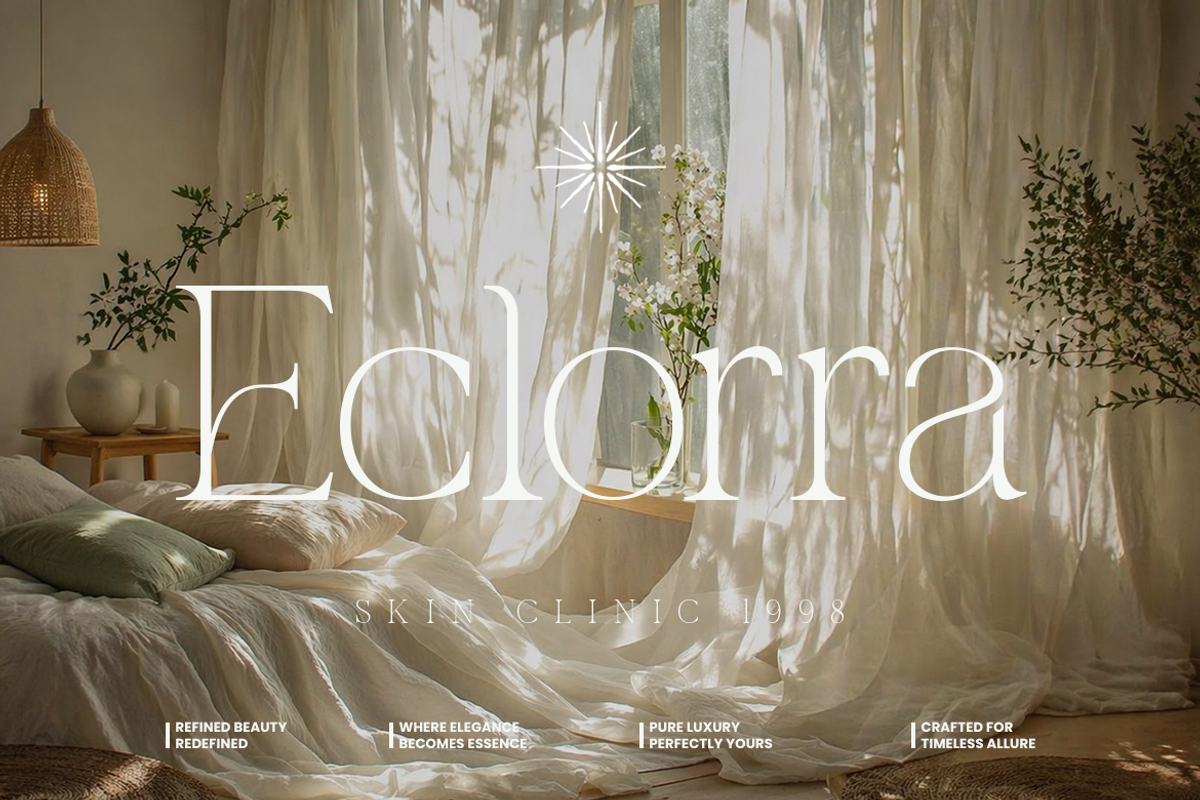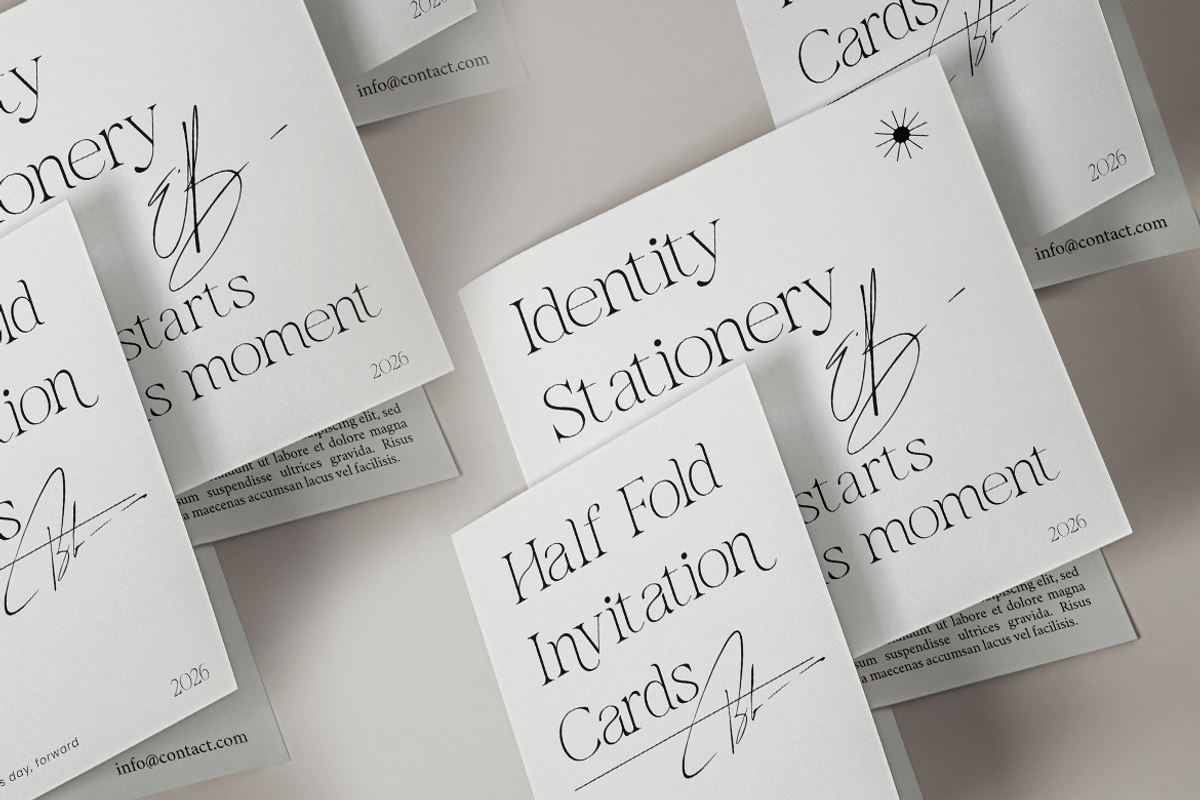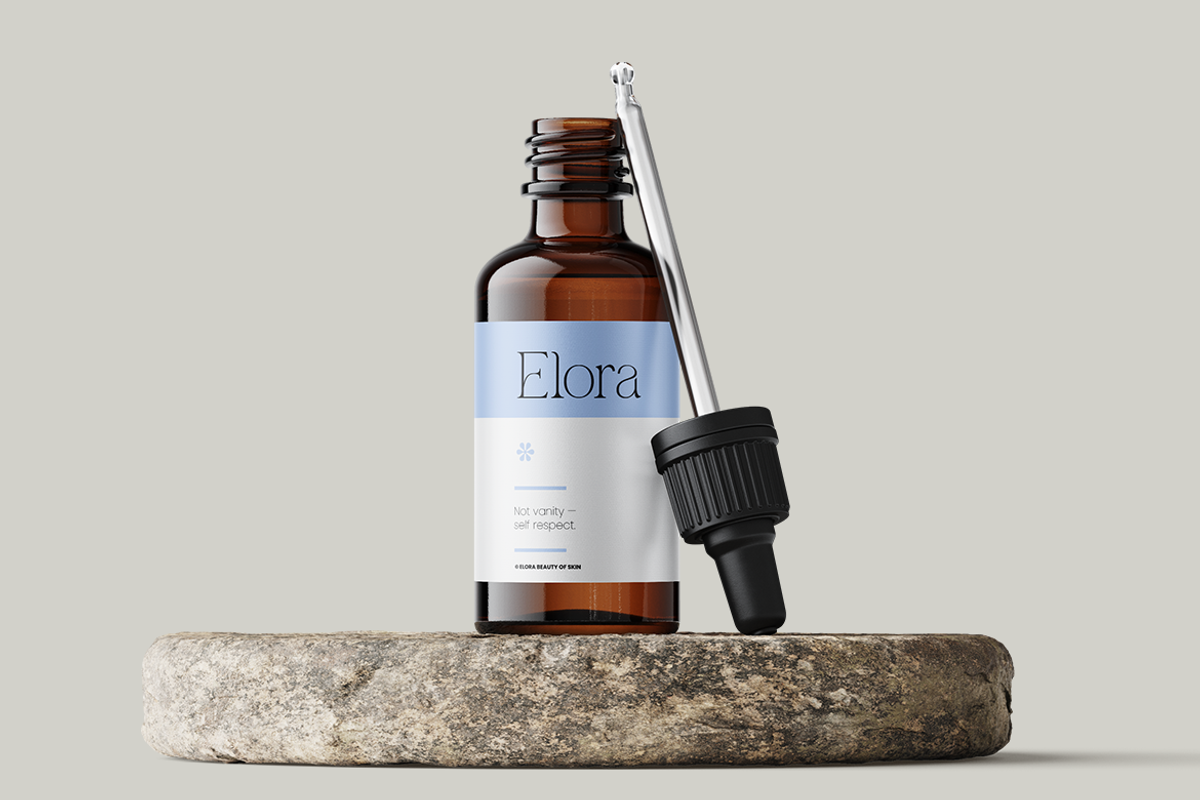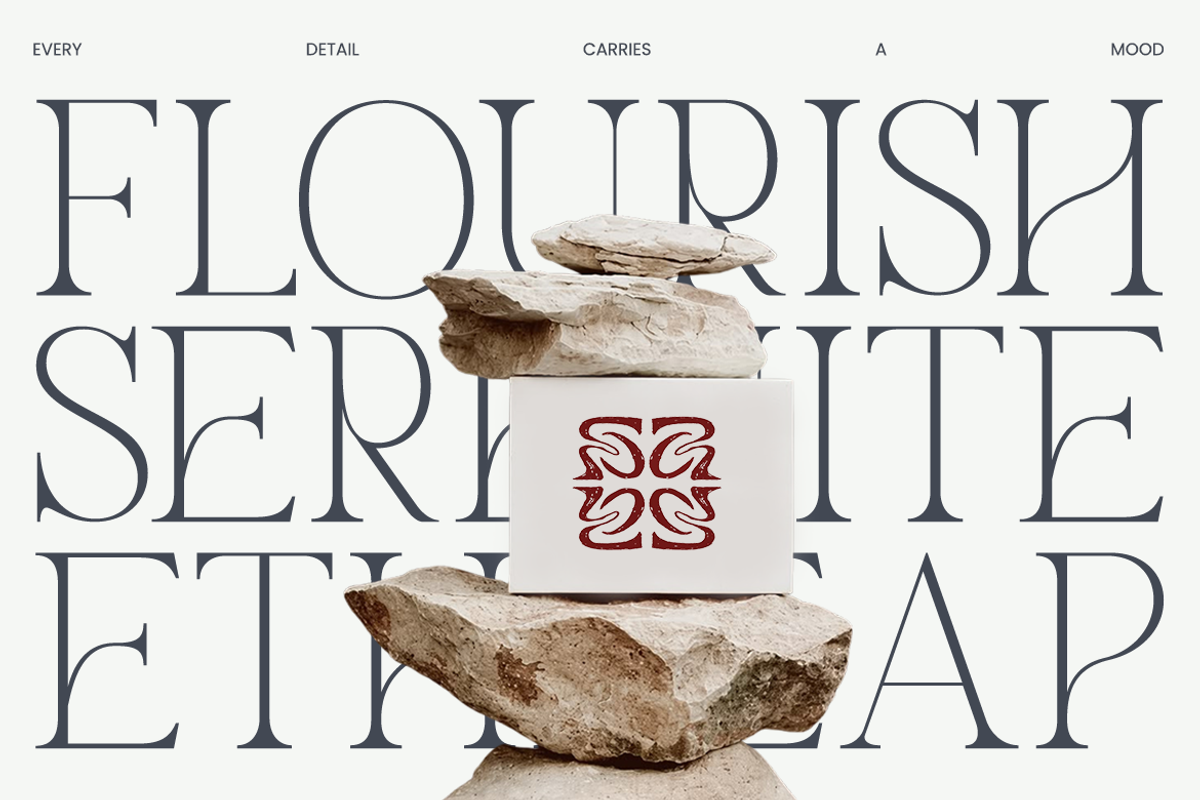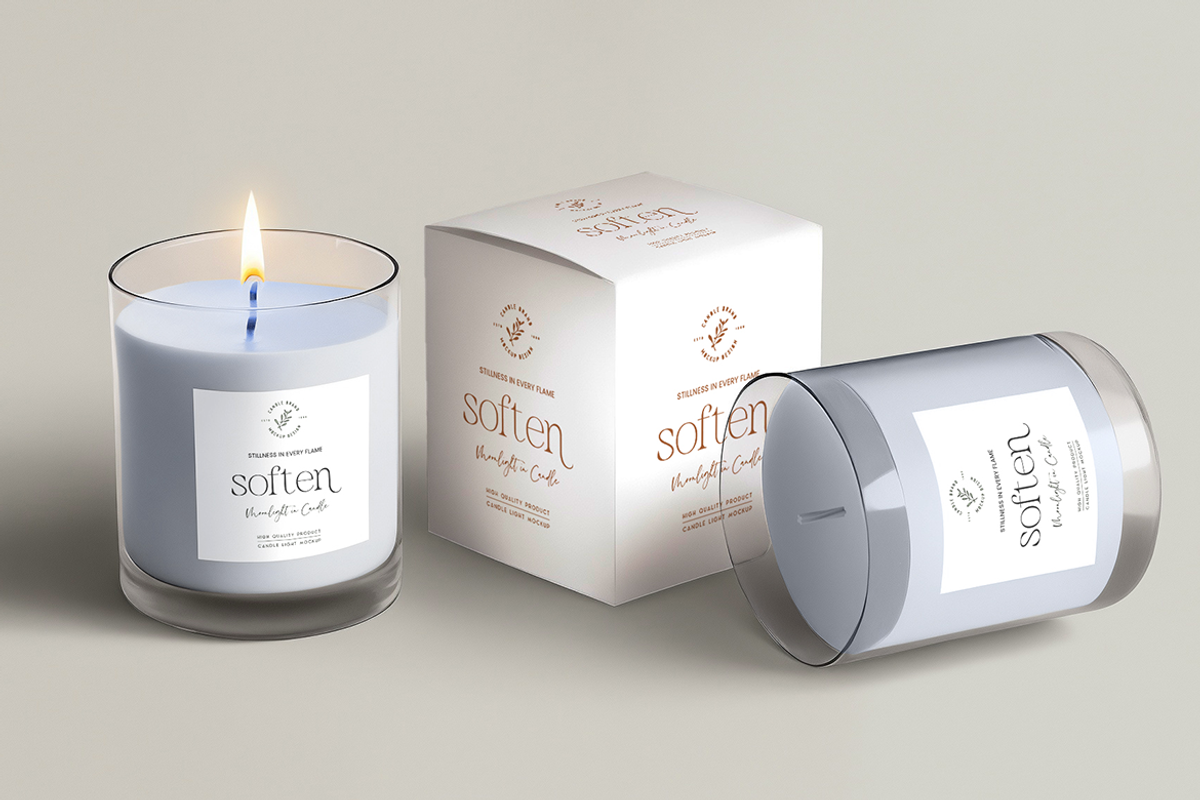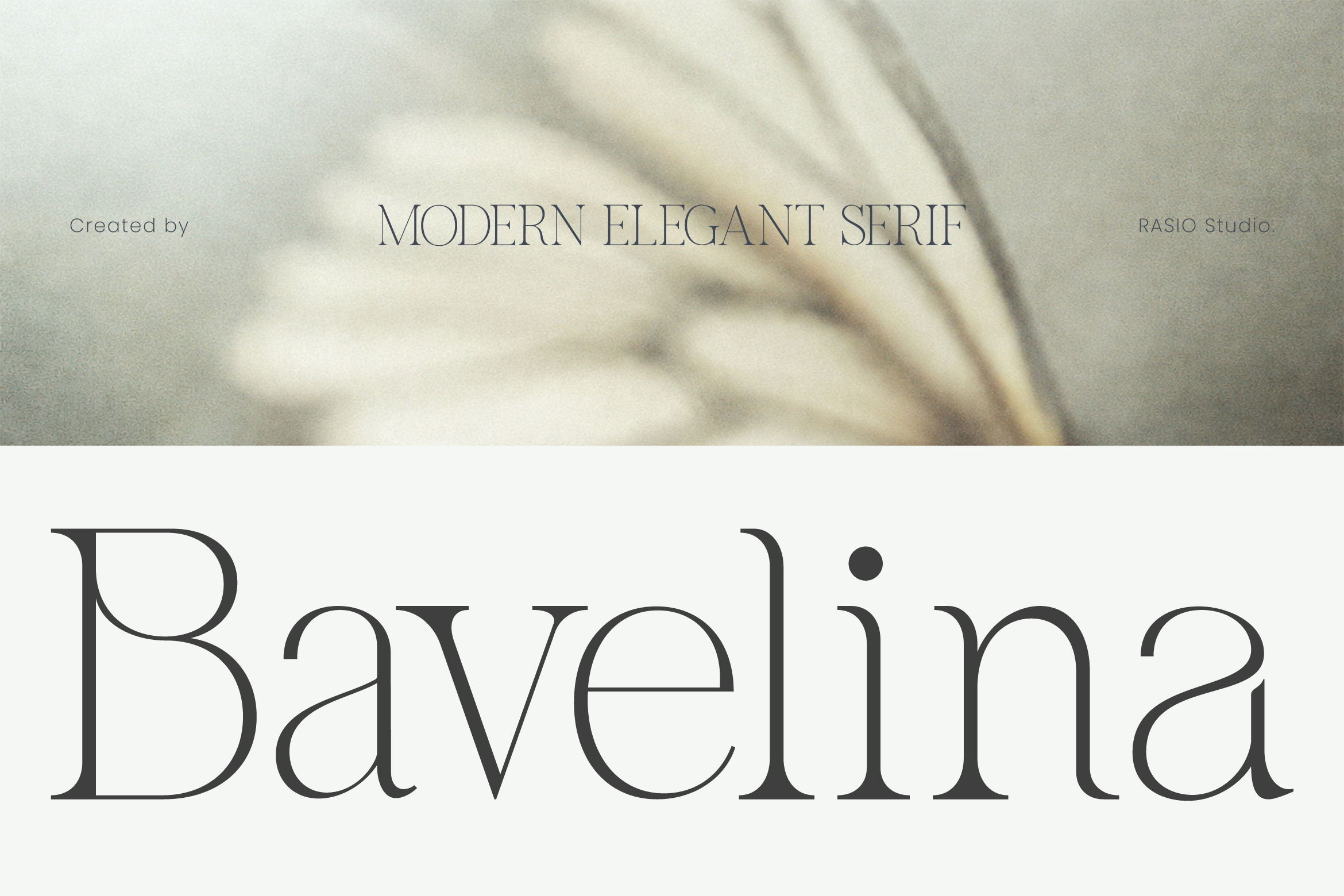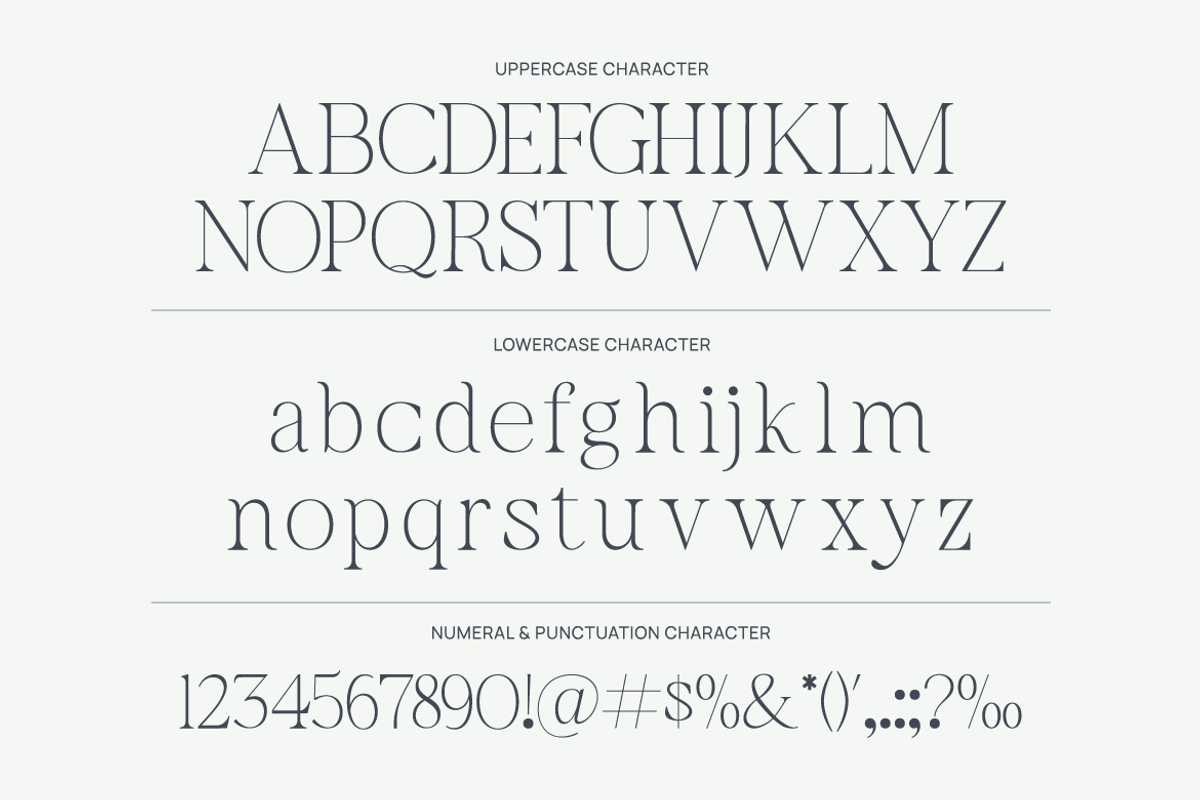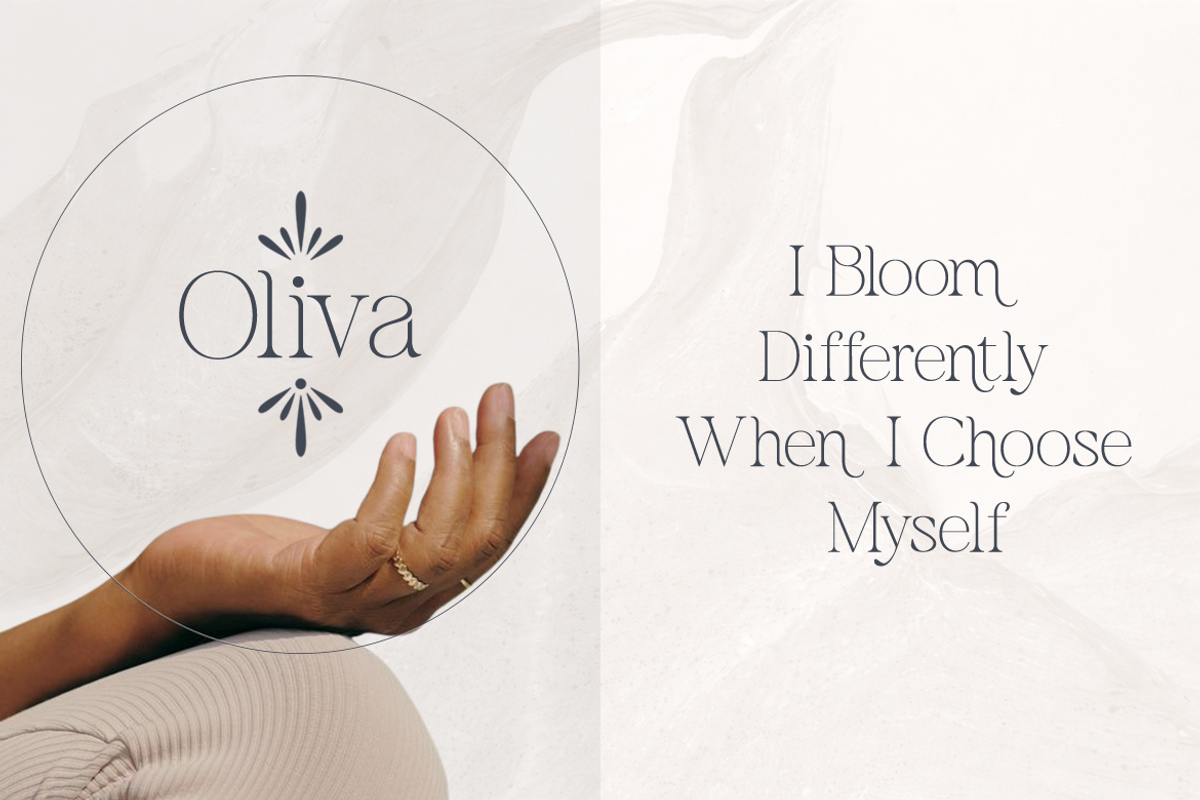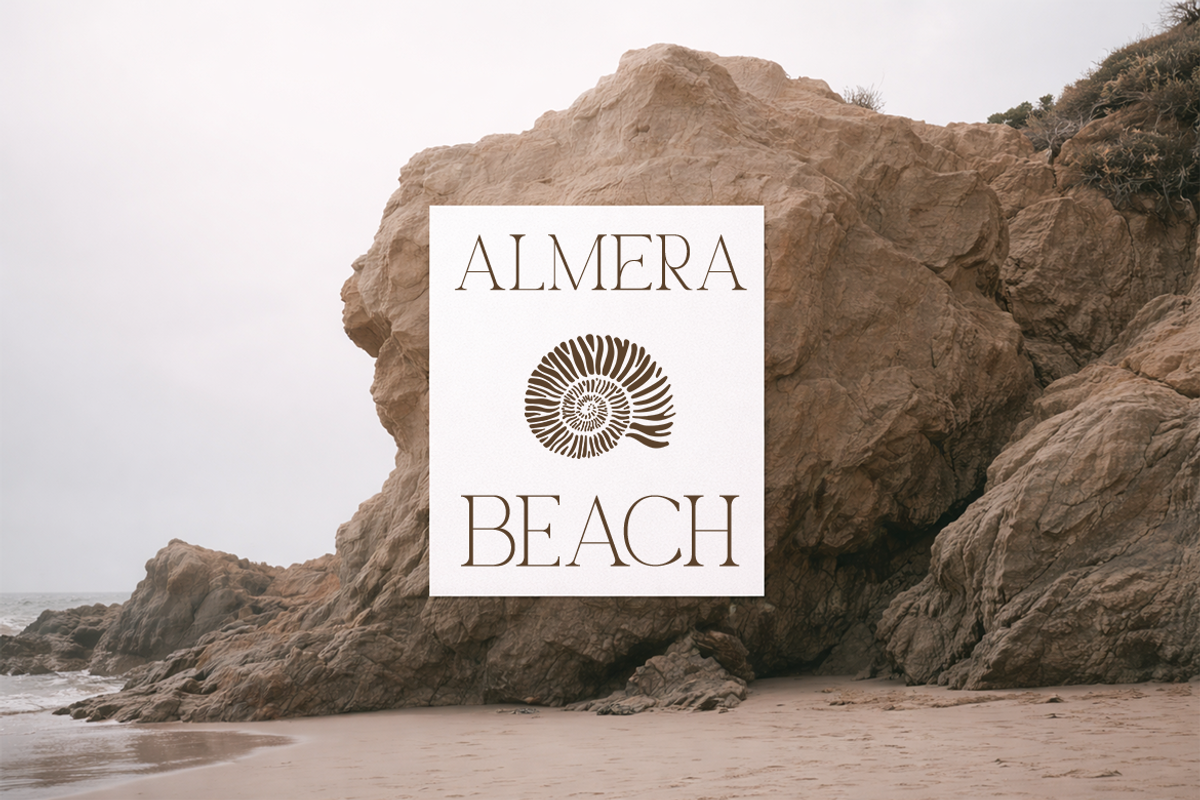
Bavelina Modern Elegant Serif Font
Bavelina is a modern elegant serif typeface defined by refined contrast, delicate curves, and graceful proportions. It includes uppercase, lowercase, numerals, and punctuation with carefully crafted letterforms that emphasize sophistication and readability. The design blends classic serif aesthetics with a contemporary touch, making it suitable for high-end visual compositions.
This typeface reflects modern elegance and is highly relevant for visual identities that emphasize luxury, beauty, and sophistication. It works effectively in branding, editorial layouts, and marketing materials where a refined and timeless tone is essential. Its balanced contrast and clean structure allow it to perform well in both large headlines and supporting text, especially in industries focused on aesthetics and premium presentation.
- High-contrast serif structure with refined thin strokes and elegant transitions
- Delicate curves and sharp serifs that create a graceful, feminine impression
- Sophisticated letterforms with elongated proportions for a luxurious feel
- Smooth stroke modulation enhancing visual rhythm and readability
- Generous spacing that supports airy, premium, and editorial-style compositions
- Luxury brand identity and high-end logo design with refined elegance
- Editorial layouts such as fashion magazines, beauty publications, and lookbooks
- Cosmetic, skincare, and perfume packaging with a premium aesthetic
- Wedding invitations, event stationery, and sophisticated print designs
- Social media visuals and marketing materials with a soft, timeless luxury tone